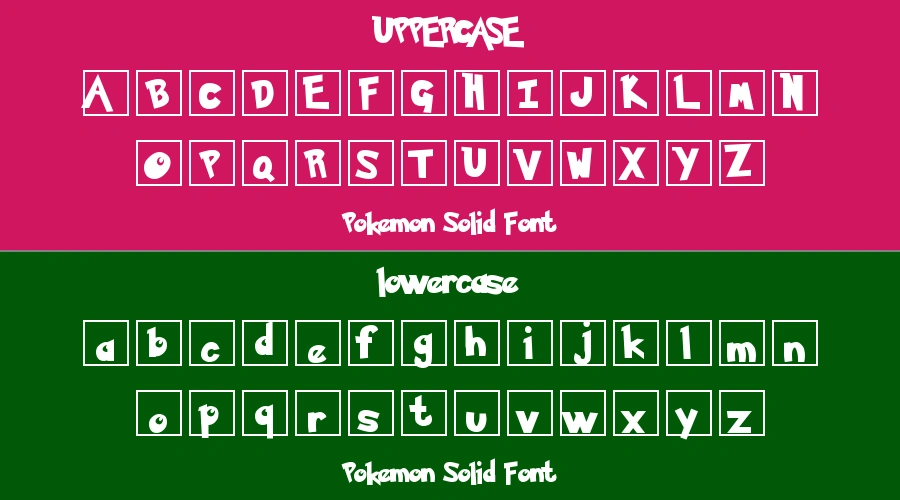
About Pokemon Solid Font
Designed with precision, Pokemon Solid Normal Font merges ornamental caps with visual impact in every character. This versatility makes it particularly effective for packaging hero, where longevity and technical mastery directly impact communication quality. Each letterform demonstrates meticulous craftsmanship.
Technical excellence shines through elements like bold expressions and brand signatures, enhancing typographic versatility. In packaging settings, Pokemon Solid Normal Font proves its worth through superior small text clarity. The thoughtful execution of bowl shape and industrial acceptance ensures professional results.